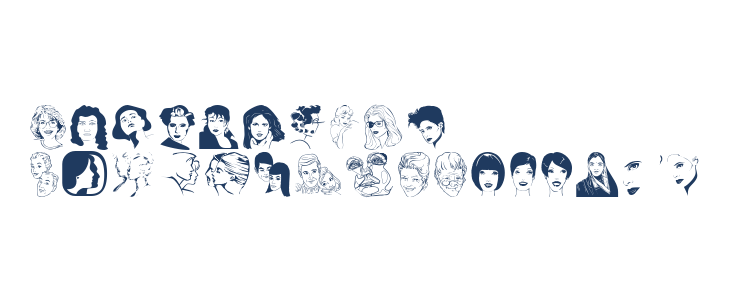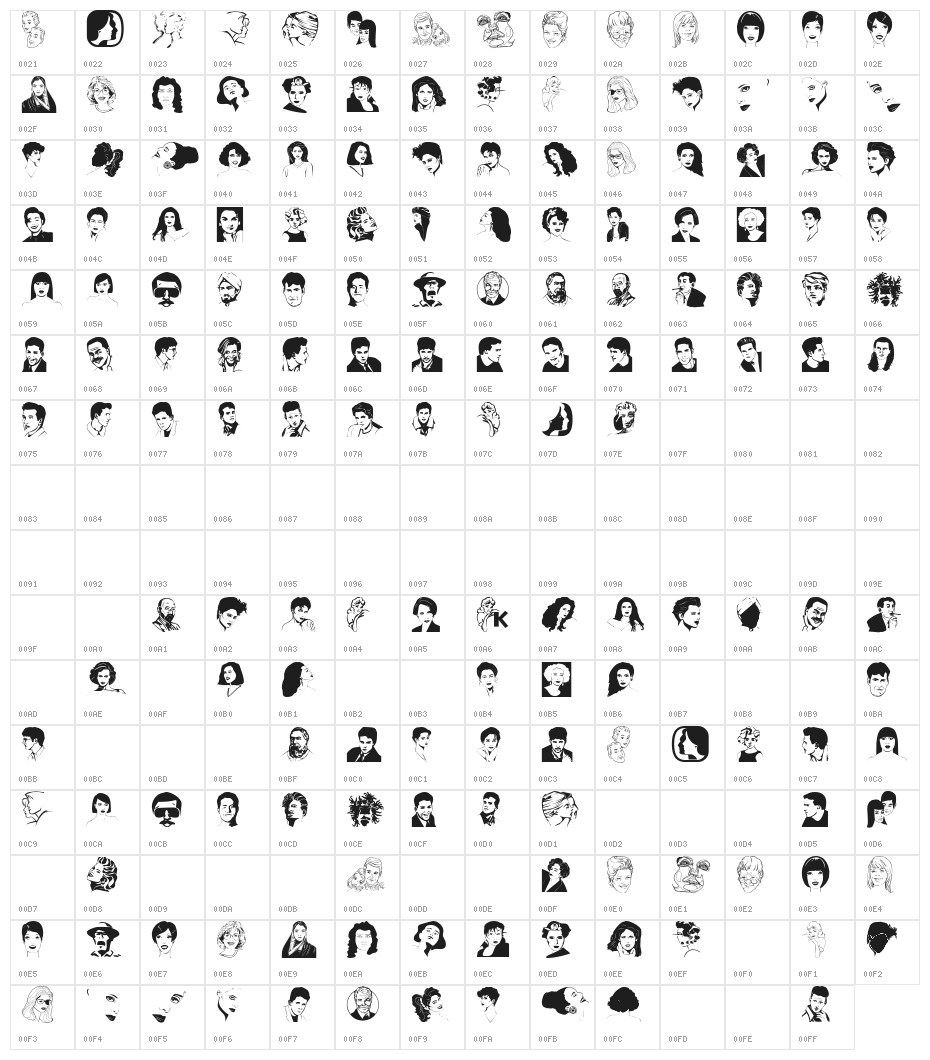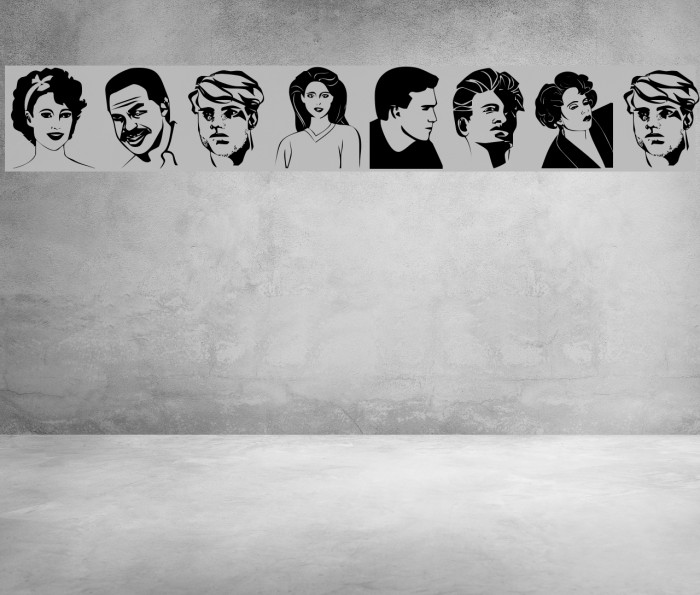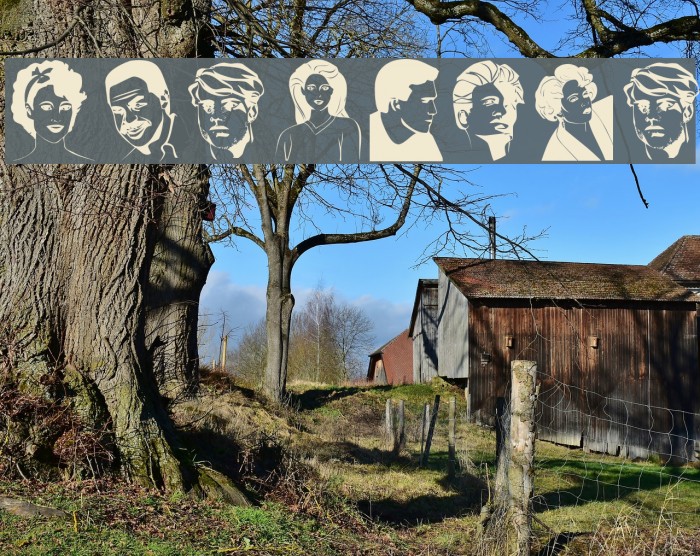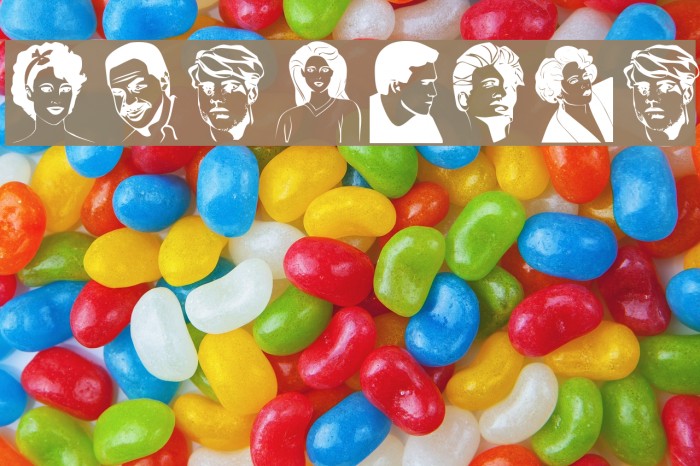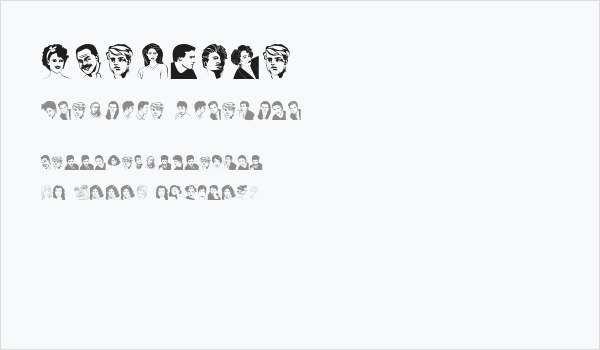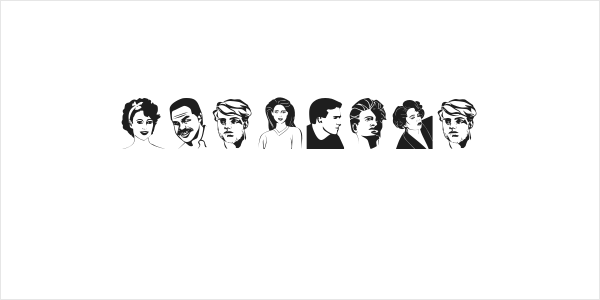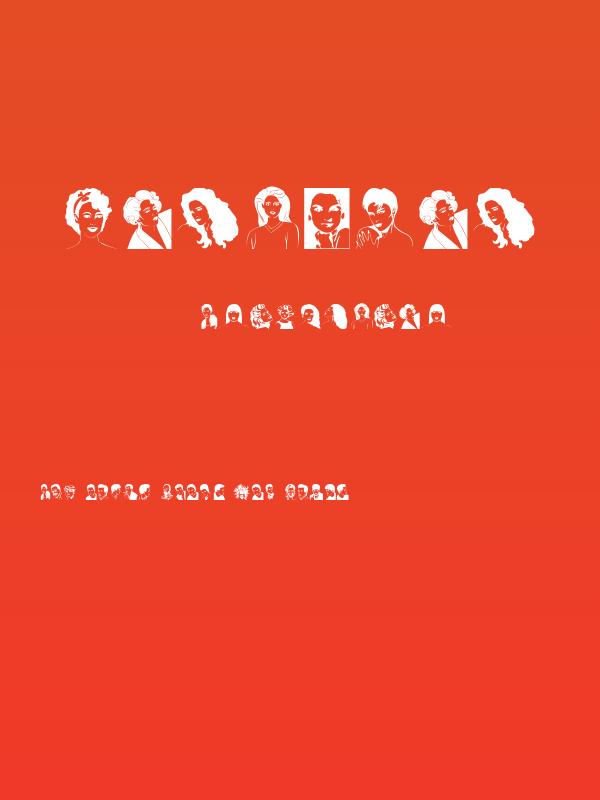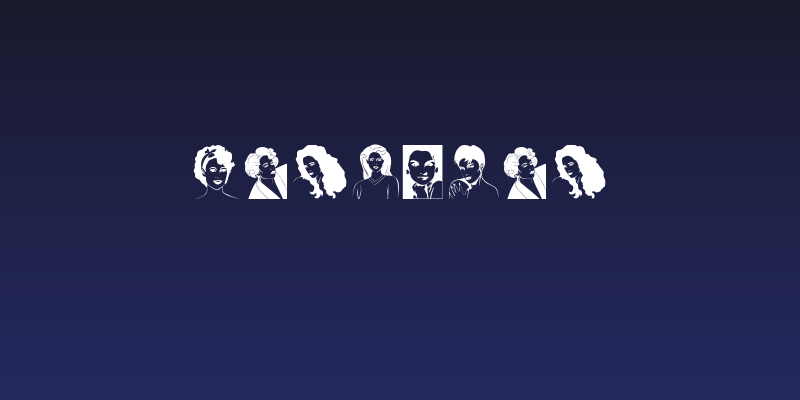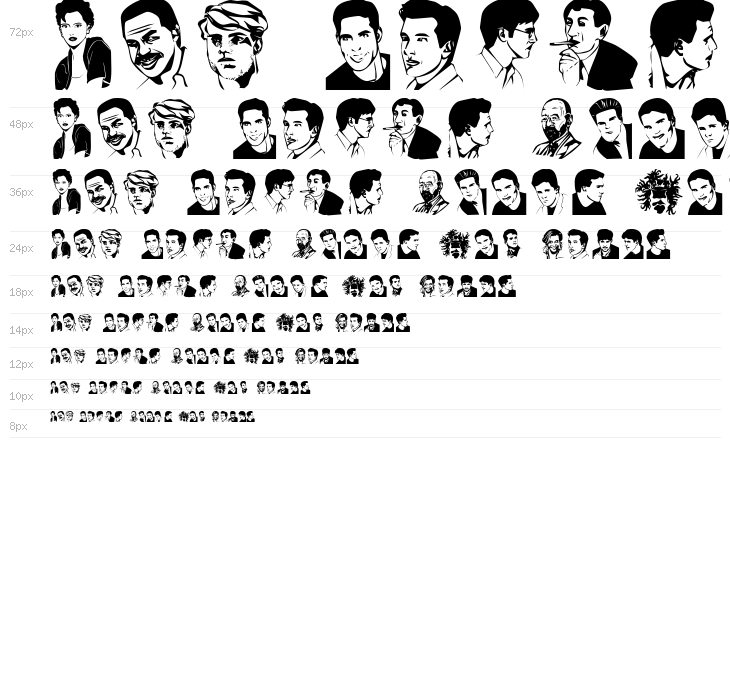
SheAndHe Font
SheAndHe Description
A decorative display font composed entirely of stylized black-and-white illustrated portraits of men and women, each glyph representing a unique face or bust in a variety of artistic linework styles, ranging from realistic to cartoonish.
| Overall Style | Decorative, Artistic, Illustrative |
| Use Case | Logos, Headlines, Posters, Artistic projects |
| Proposed Projects | Posters, album covers, editorial illustrations, branding for creative industries, event invitations, art projects. |